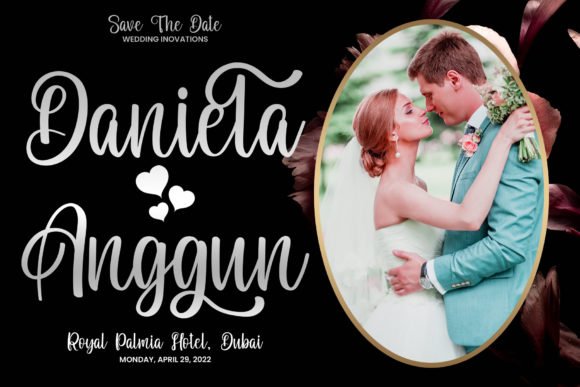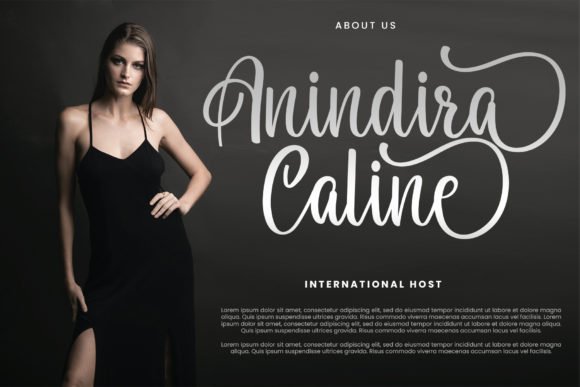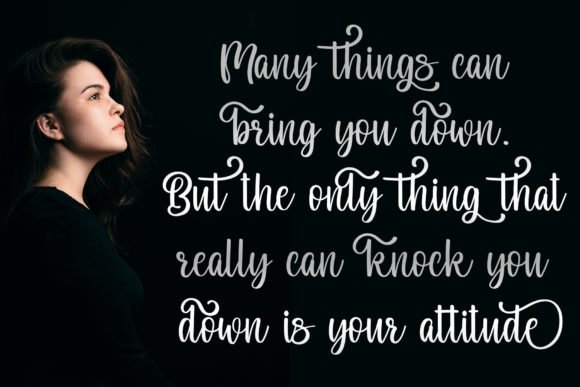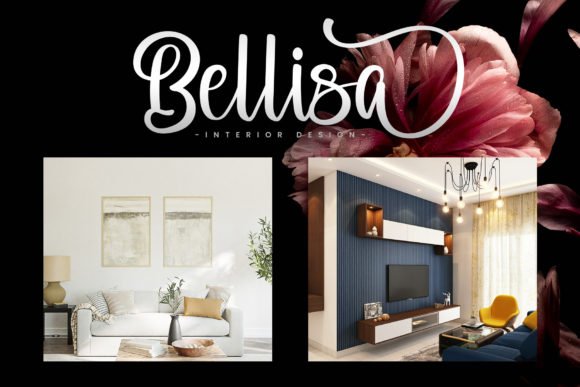
Outside Font
Outside is an elegant script font with a contemporary atmosphere and impeccable form, inspired by timeless classic calligraphy. Not too thin and not too thick, this font was designed to enhance the beauty of your projects. This font is PUA encoded which means you can access all glyphs and swashes with ease!